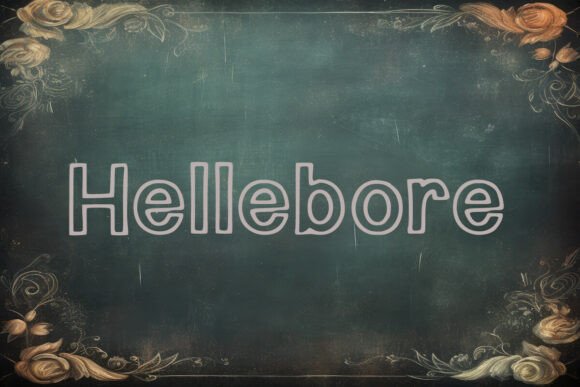
Introducing Hellebore: The Ultimate Versatile Font for Creative Projects
Are you looking for a font that can elevate your creative projects and add a touch of elegance and style? Look no further than Hellebore, a supremely versatile font designed to meet the needs of designers and crafters alike. From lively aesthetics to sleek branding elements, Hellebore is the perfect charismatic addition to draw the eye and make your projects stand out.
Endless Possibilities with Hellebore
Hellebore is more than just a font – it’s a creative tool that can be used in a wide range of applications. Whether you’re designing shirts and stickers, creating sleek branding elements and magazine layouts, or crafting greeting cards and posters, Hellebore is the perfect choice. Its versatility and charm make it an excellent addition to any project, adding a touch of sophistication and style that’s sure to impress.
Perfect for Crafters and Designers
As a designer or crafter, you know how important it is to have a font that can keep up with your creative vision. Hellebore is designed with you in mind, offering a range of features that make it perfect for cutting files, SVG files, and Cricut projects. With Hellebore, you can achieve flawless cut-outs and add distinct personality to your projects, making them truly one-of-a-kind.
Elevate Your Social Media Presence
In today’s digital age, having a strong social media presence is crucial for designers and crafters. Hellebore can help you amplify your social media posts and make them stand out in a crowded feed. Whether you’re promoting your latest design, sharing a tutorial, or simply connecting with your audience, Hellebore adds an extra touch of elegance and style that’s sure to grab attention.
Bring Life to Your Posters and Magazines
When it comes to creating posters and magazines, the right font can make all the difference. Hellebore is designed to bring life to your designs, adding a touch of sophistication and style that’s sure to engage your audience. Whether you’re creating a bold and eye-catching poster or a sleek and modern magazine layout, Hellebore is the perfect choice.
Key Features of Hellebore
- Supremely versatile font suitable for a wide range of creative projects
- Perfect for shirts, stickers, branding elements, magazine layouts, and more
- Charismatic addition that draws the eye and adds an extra touch of elegance and style
- Suitable for cutting files, SVG files, and Cricut projects
- Amplify your social media posts and make them stand out in a crowded feed
- Bring life to your posters and magazines with a touch of sophistication and style
Get Creative with Hellebore
In conclusion, Hellebore is a supremely versatile font that’s perfect for designers and crafters looking to add a touch of elegance and style to their creative projects. With its wide range of applications, key features, and endless possibilities, Hellebore is the ultimate font for anyone looking to elevate their designs and make them stand out. So why settle for ordinary fonts when you can have a font that truly makes a statement? Choose Hellebore today and experience the difference for yourself.